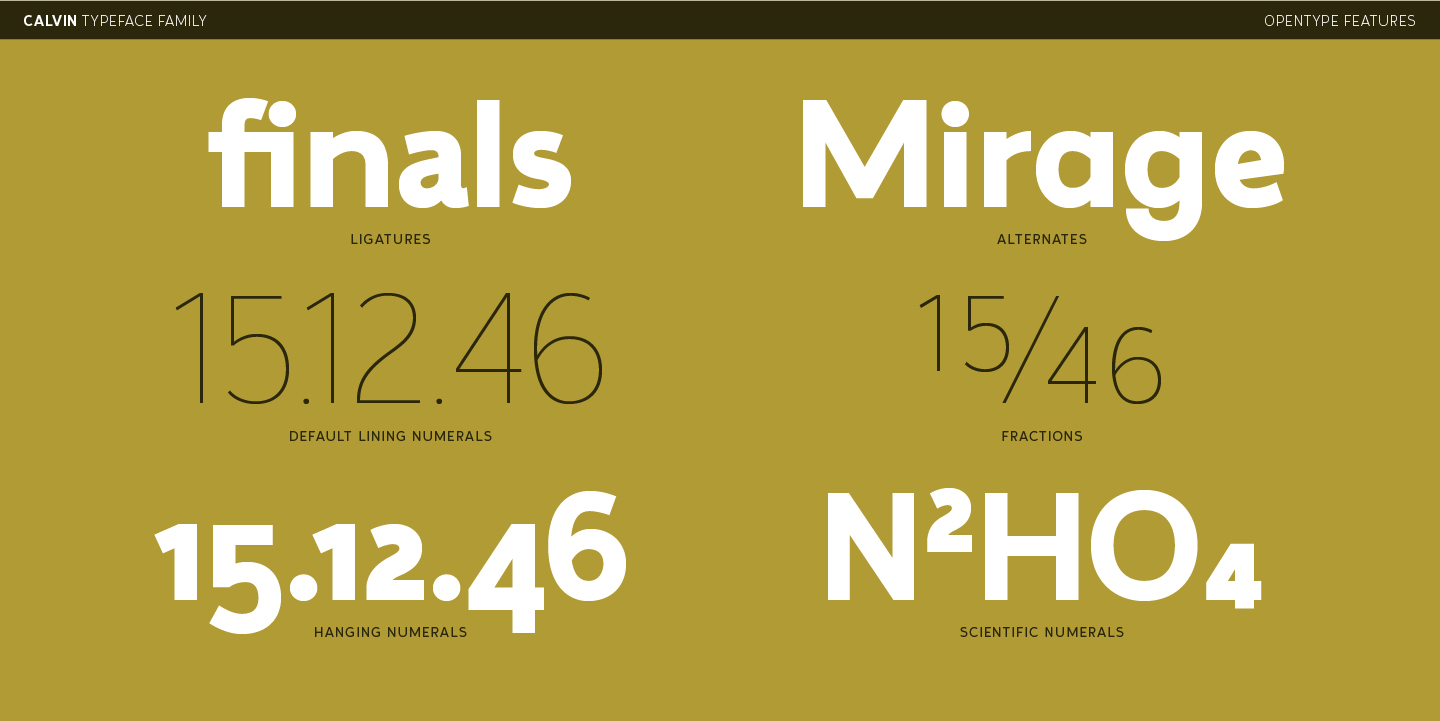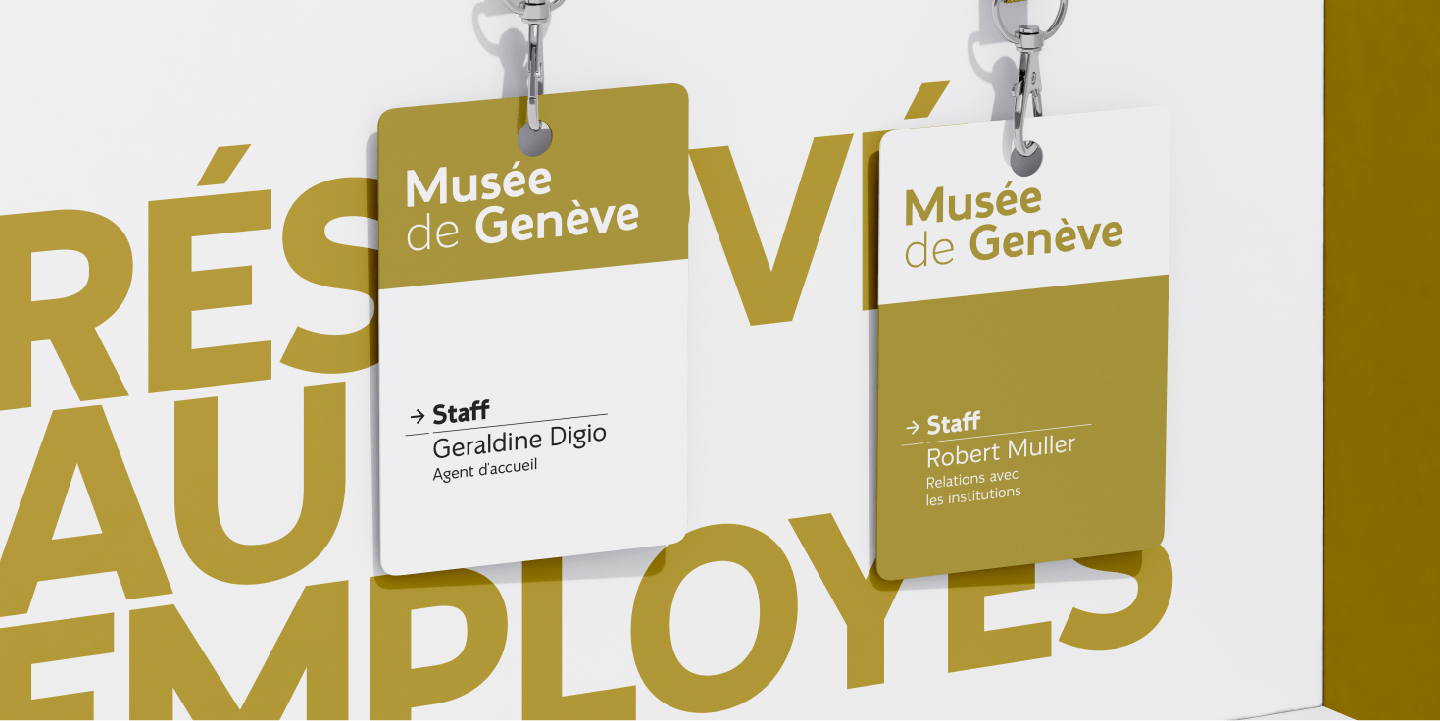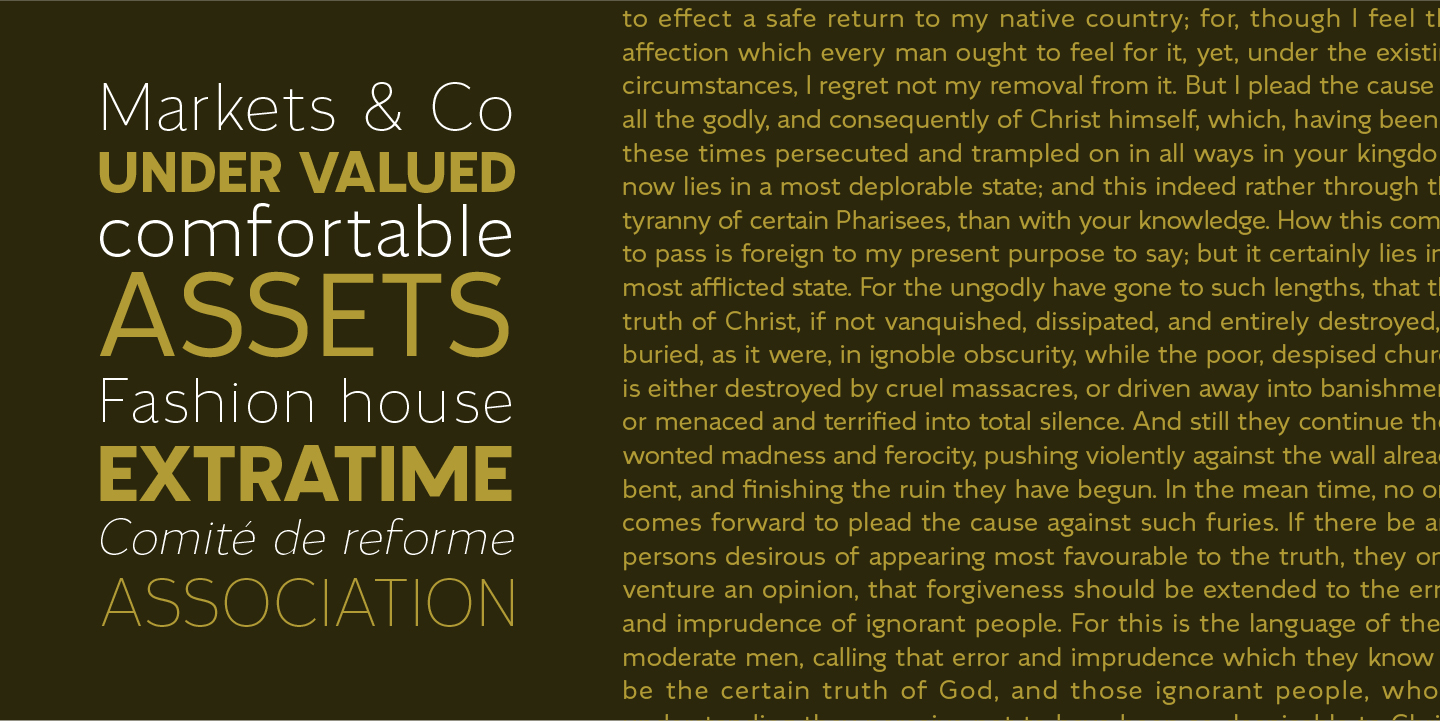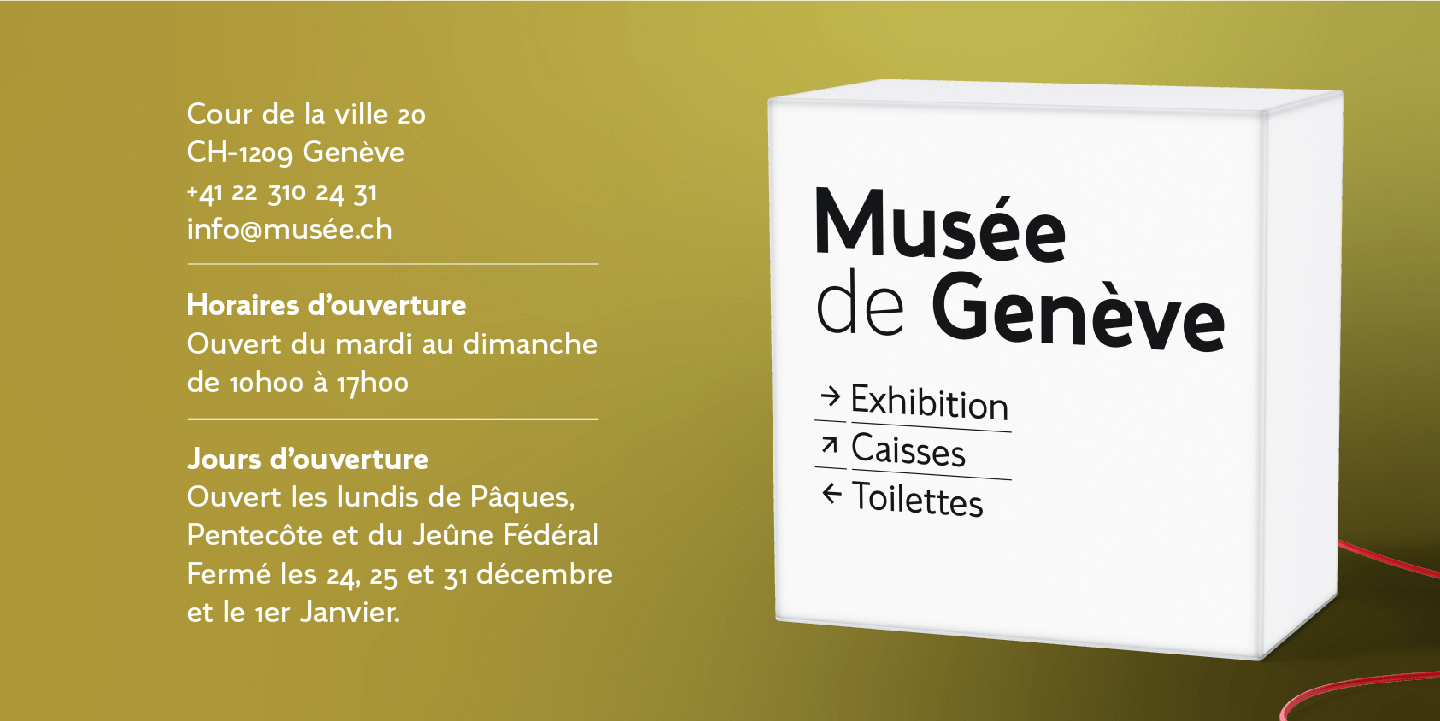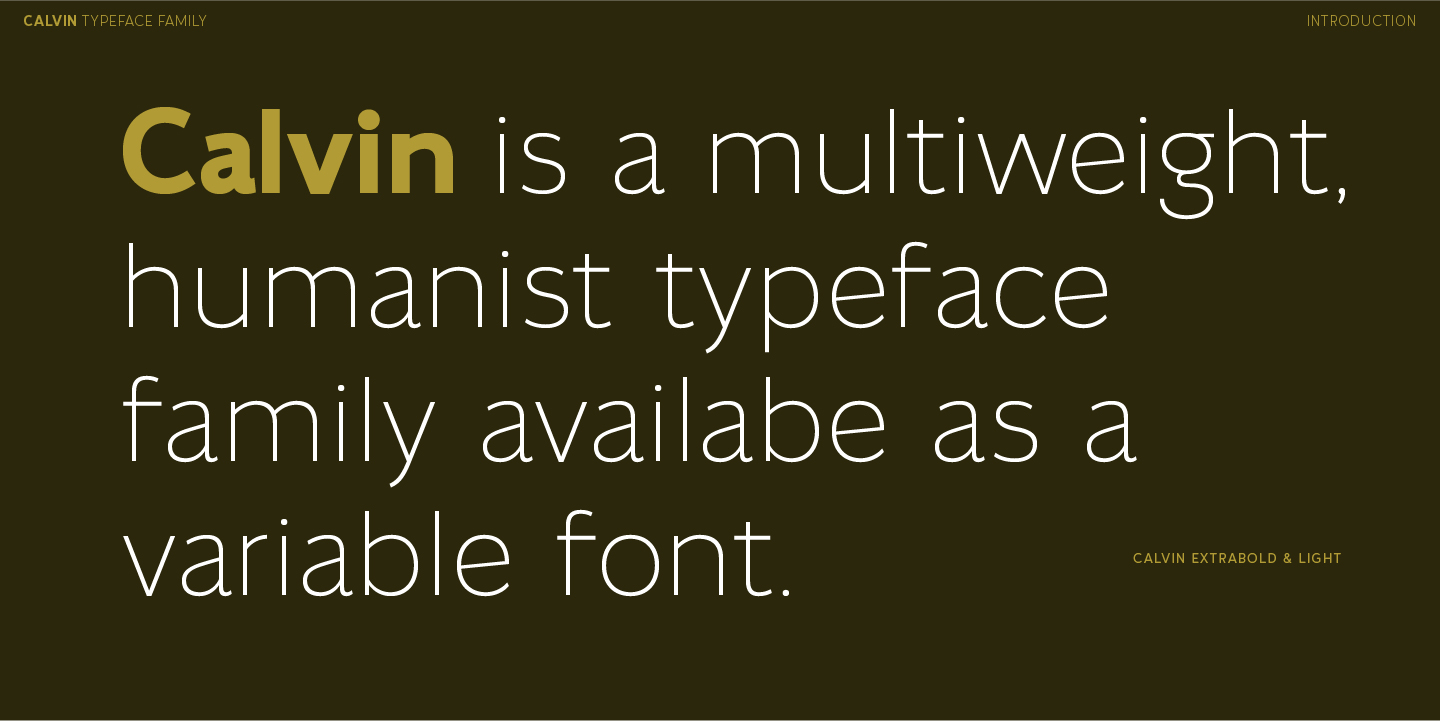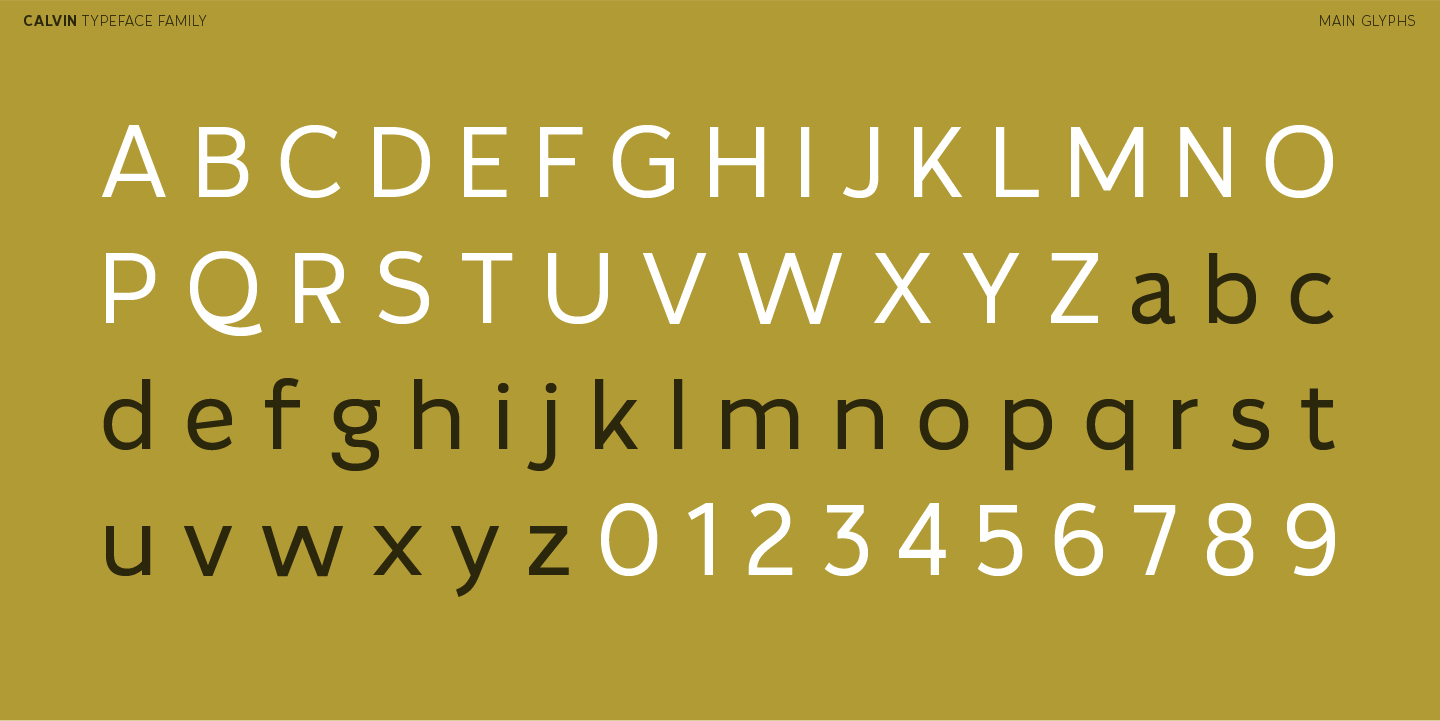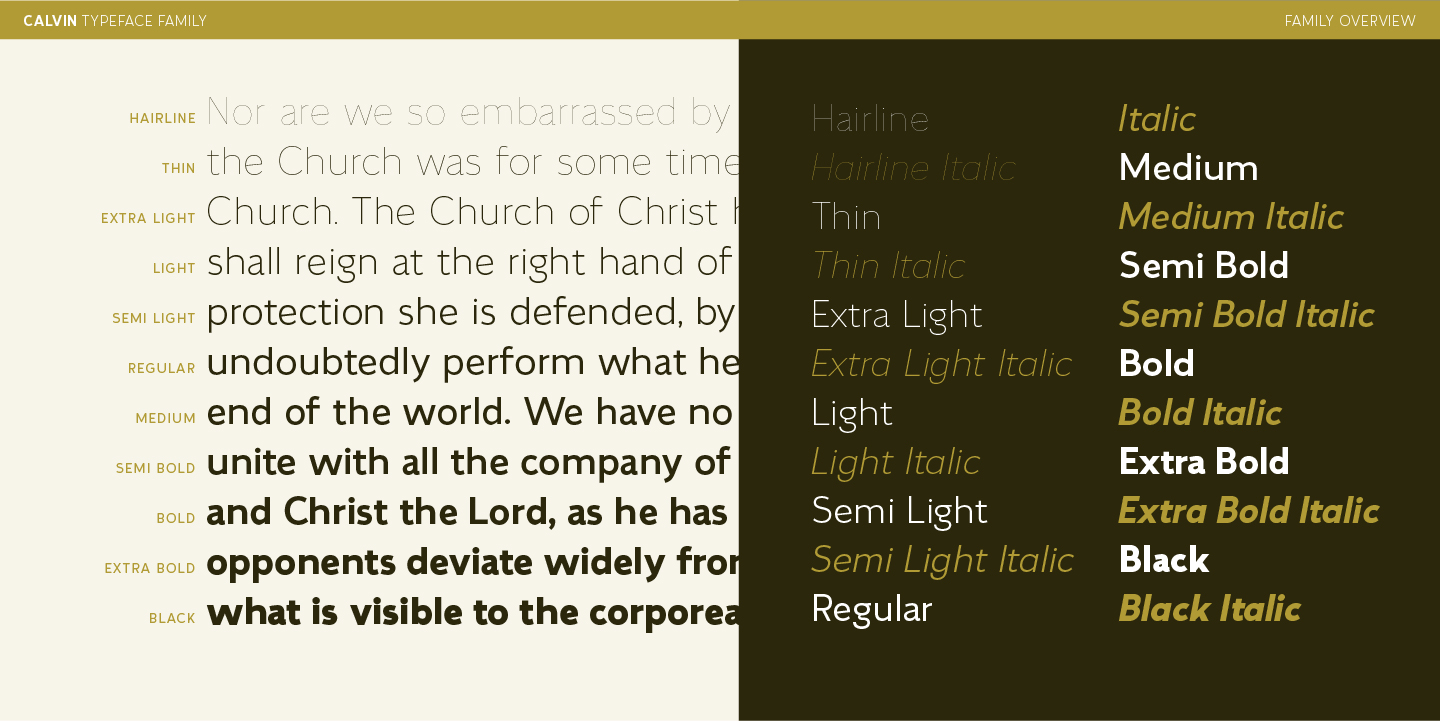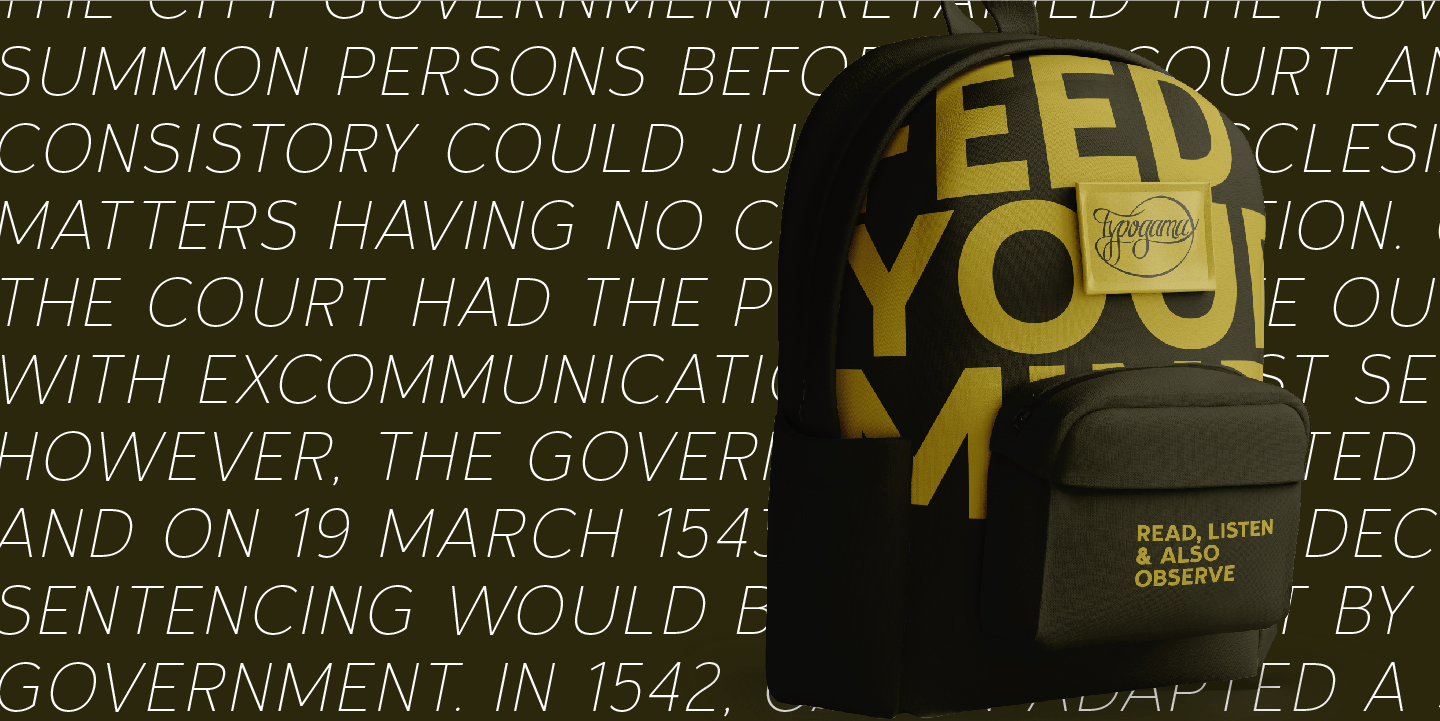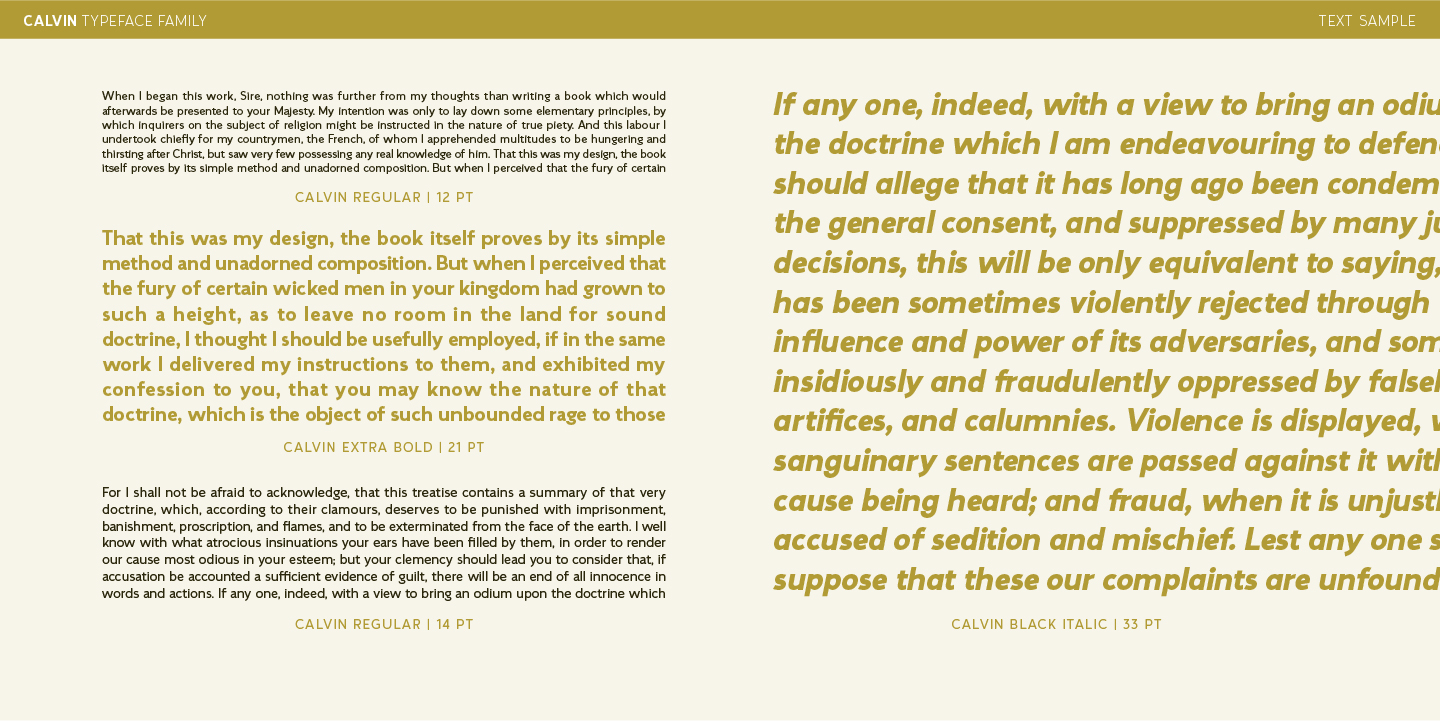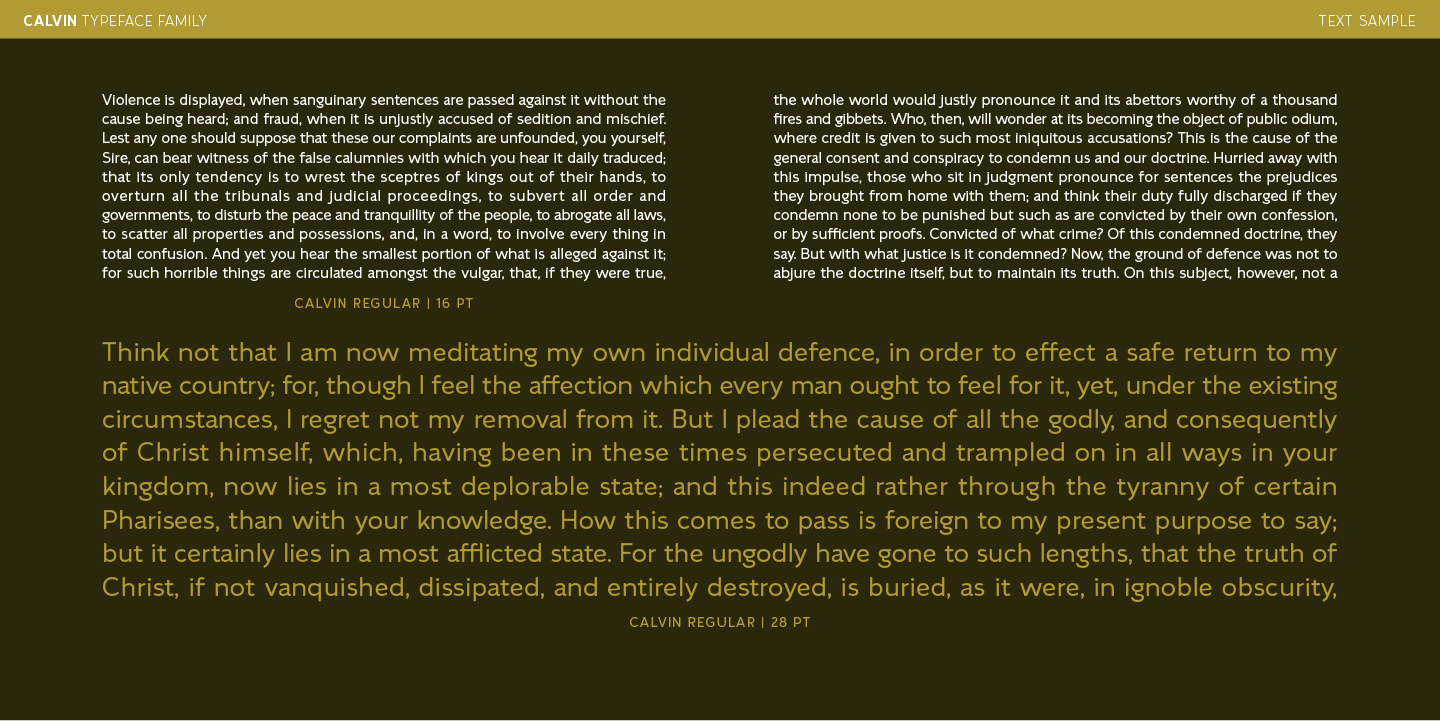
Calvin
Calvin is a humanist, sans serif style that aims to be a versatile and adaptable solution. With a wide selection of weights, ranging from a Hairline to a dark Black weight, it can be attention grabbing in headlines while remaining clear and legible in smaller sizes or longer passage of text.
With an expanded character set that covers most latin based languages, Calvin is available as static Opentype weights or as a single variable font.